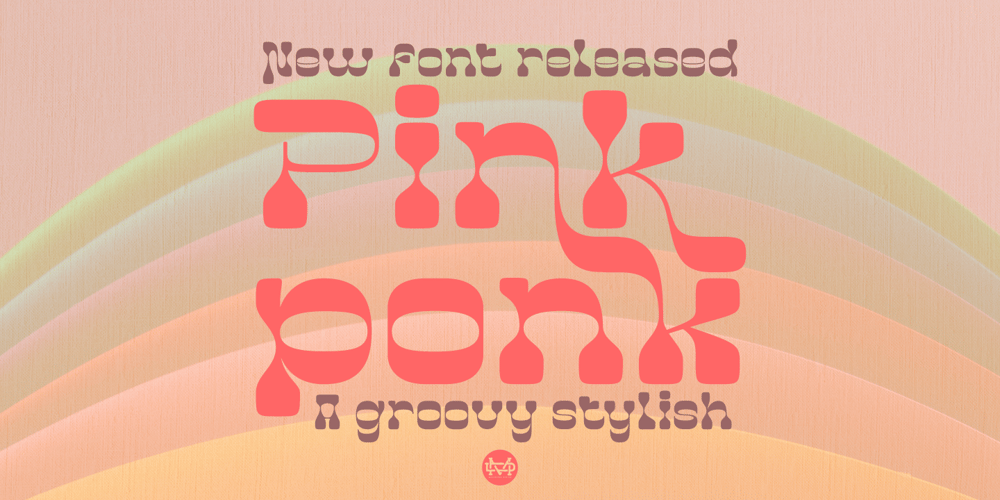
Pinkponk
Pinkponk font
Pinkponk Font Family was designed by Suandana ipandemade and published by madeDeduk. Pinkponk contains 1 styles and family package options. Hello I’m really excited to introduce Pinkponk designed to become a groovy and vintage, this font has the potential to bring each of your creative ideas to the highest level. Combine with ligatures and special alternative glyphs so you can create a lots with layouts and compositions. Pinkponk brings a touch of 80’s and 90’s era bespoke custom typography to logos, websites, social media quotes, wedding branding, and more.Whats Included ? Uppercase & Lowercase Number & Symbol International Glyphs Multilingual support Thank you so much for checking out my shop, and please get in touch if you have any questions! at: dedukvic@gmail.comfind more previews on my Instagram here : https://www.instagram.com/acekelgondolayu/?hl=en